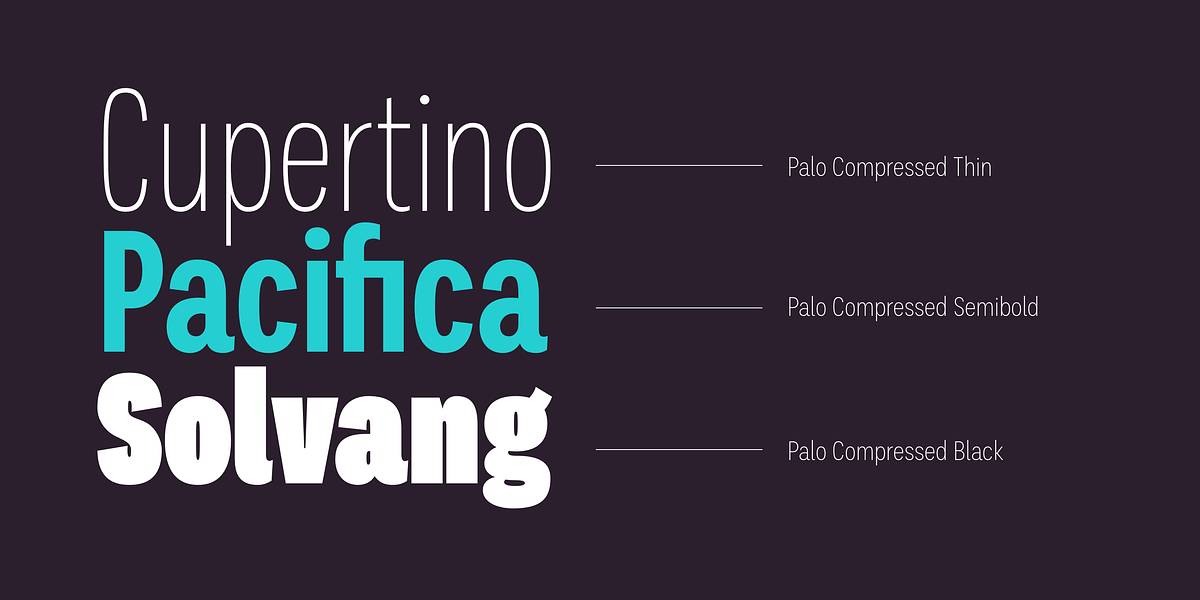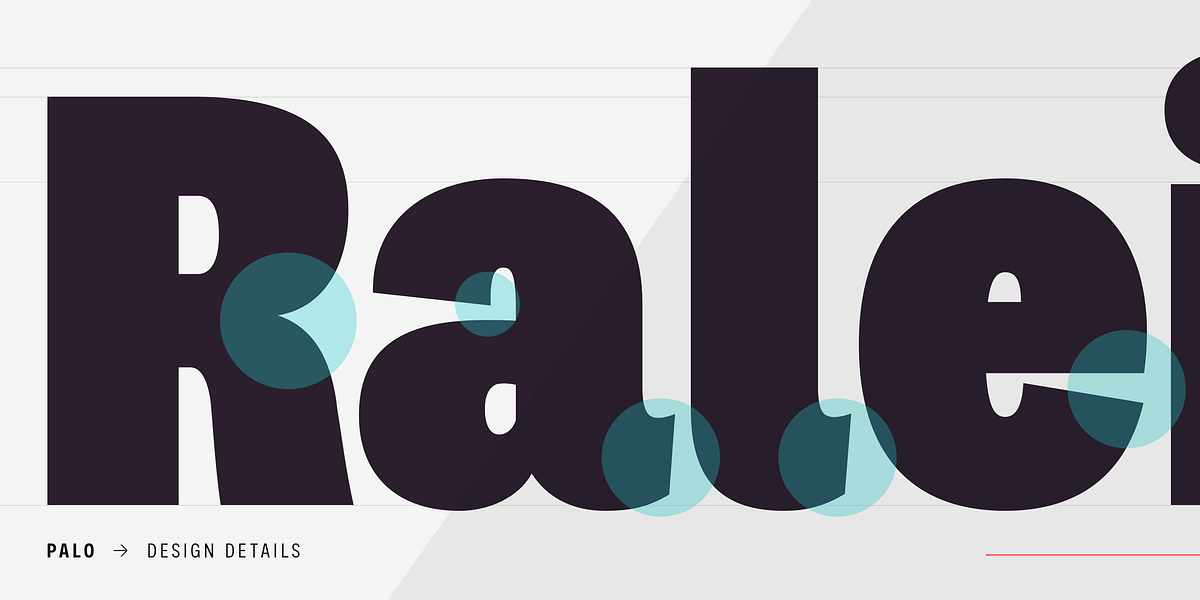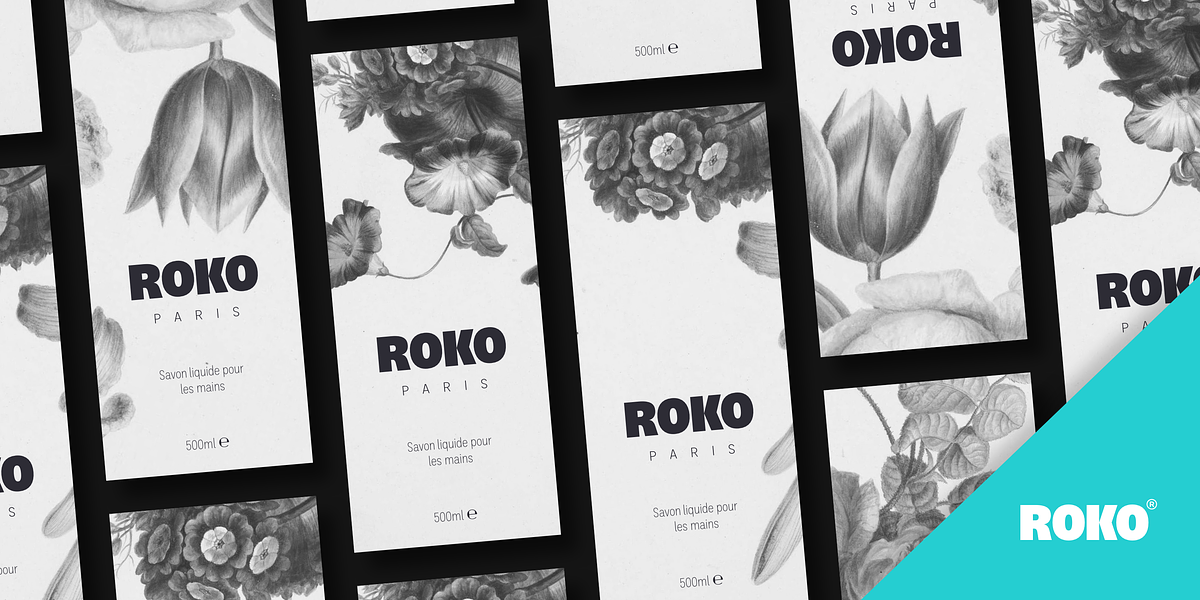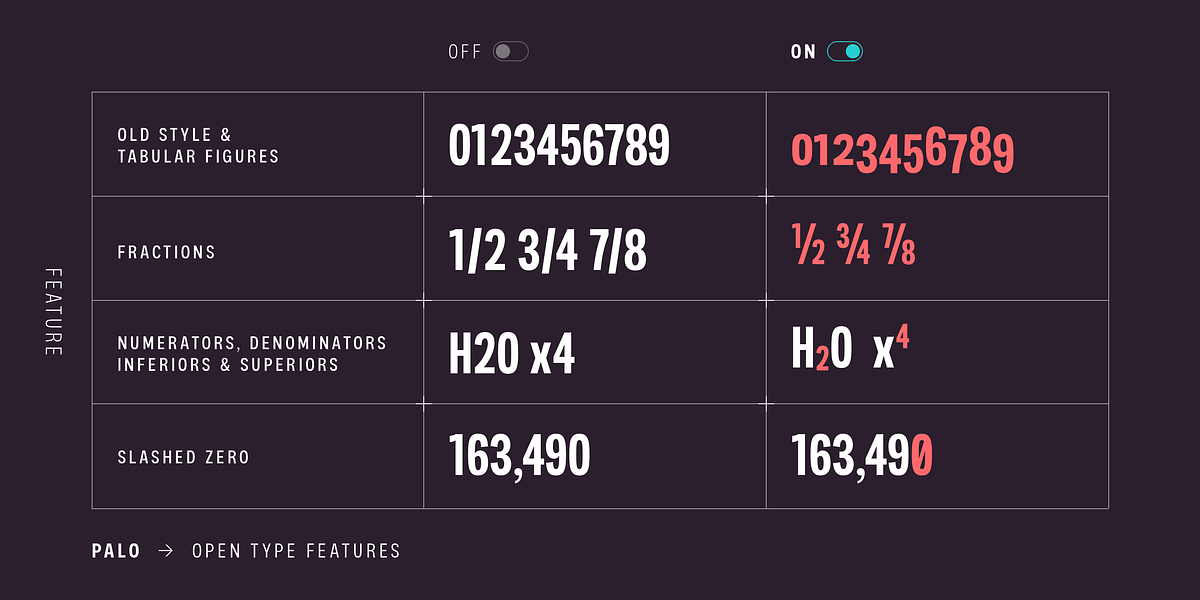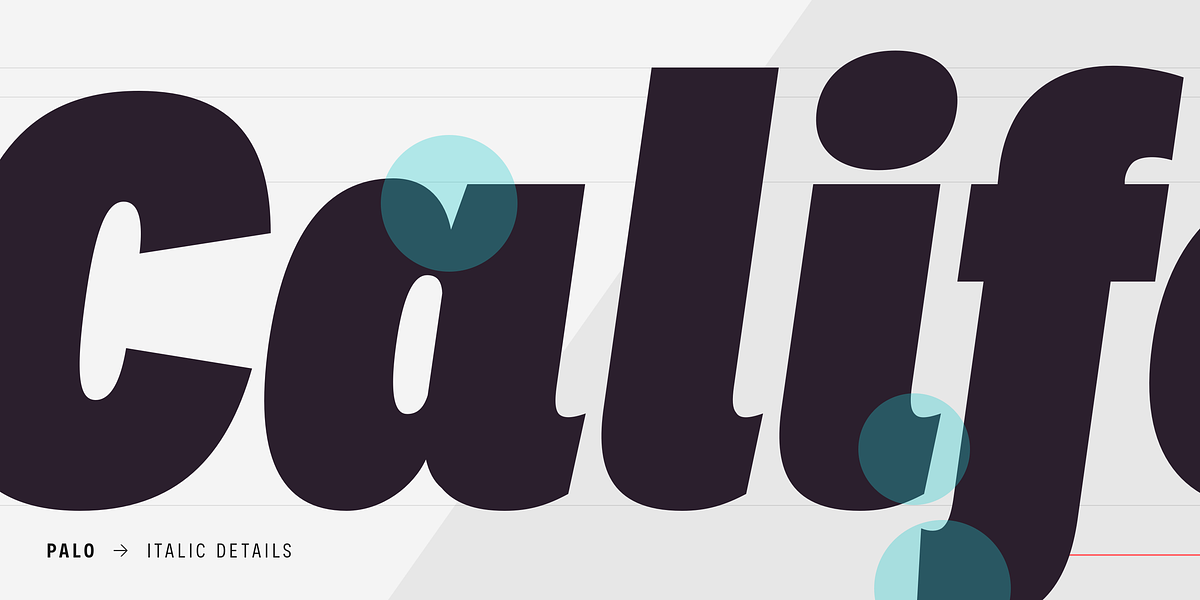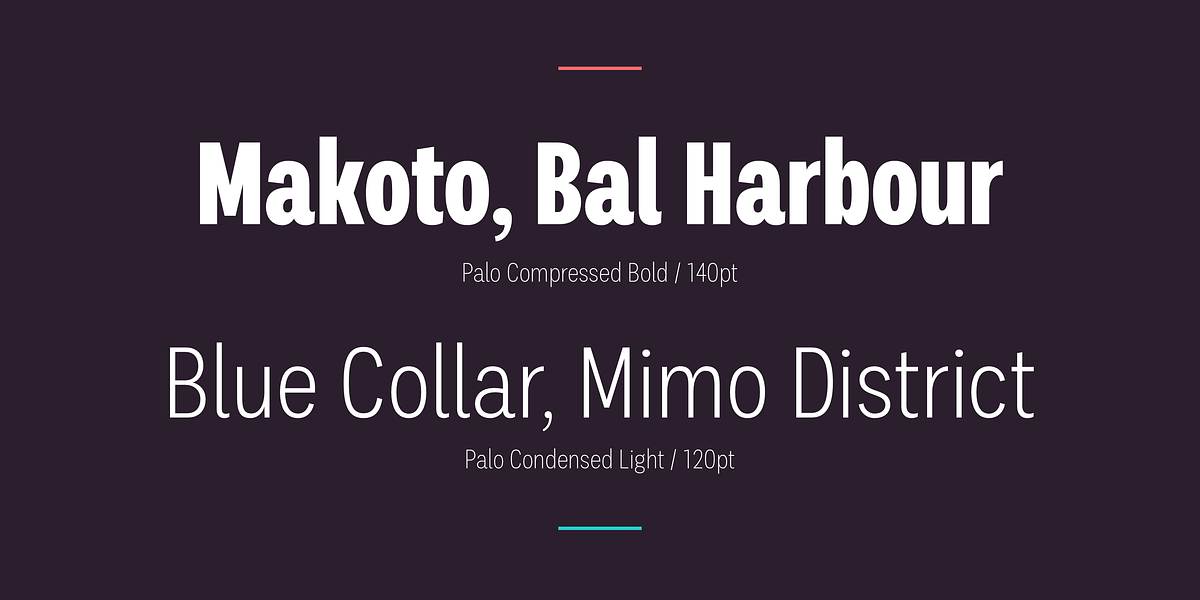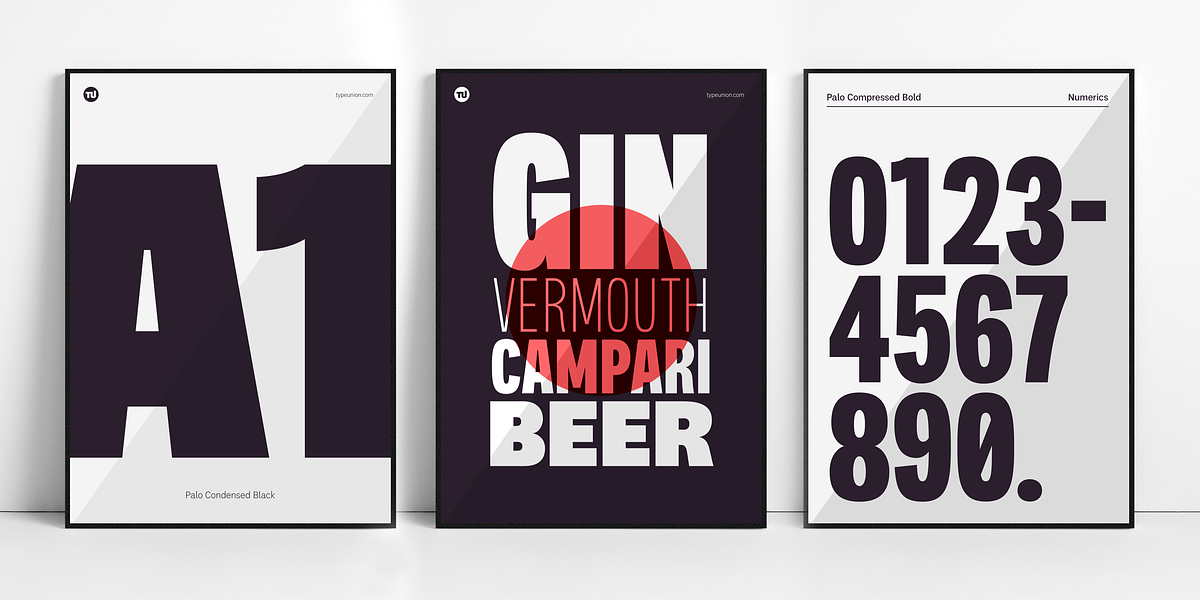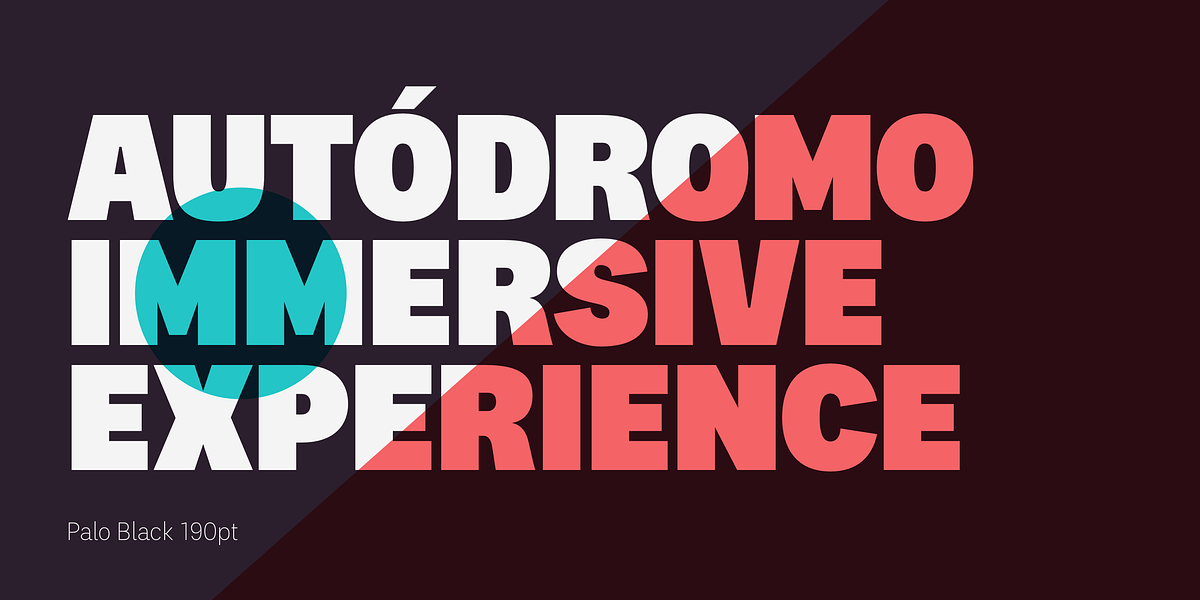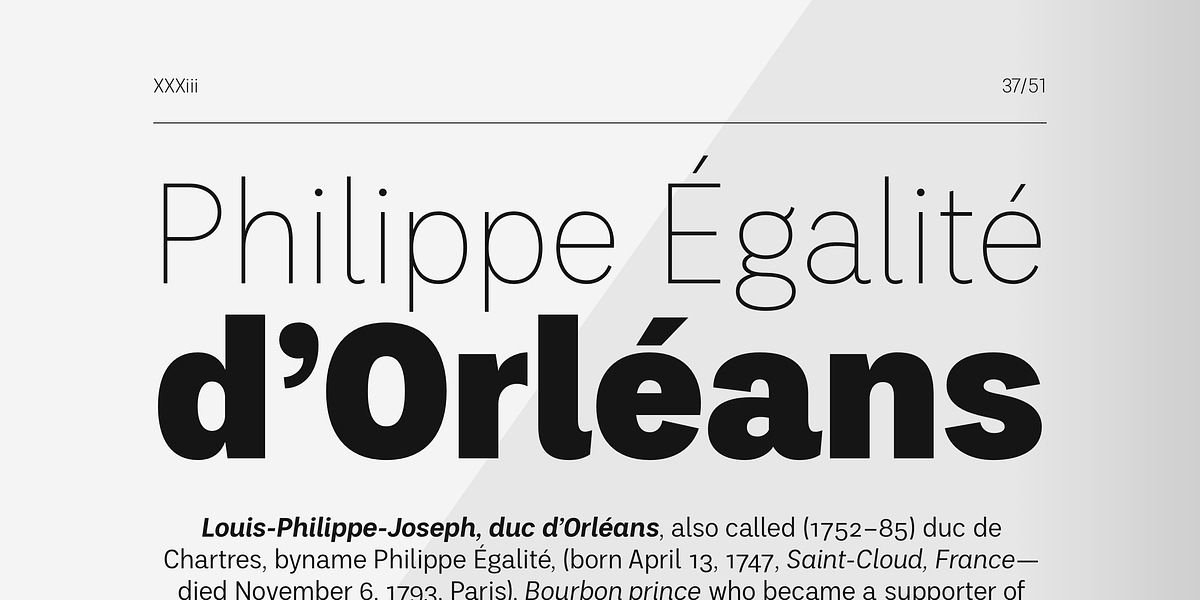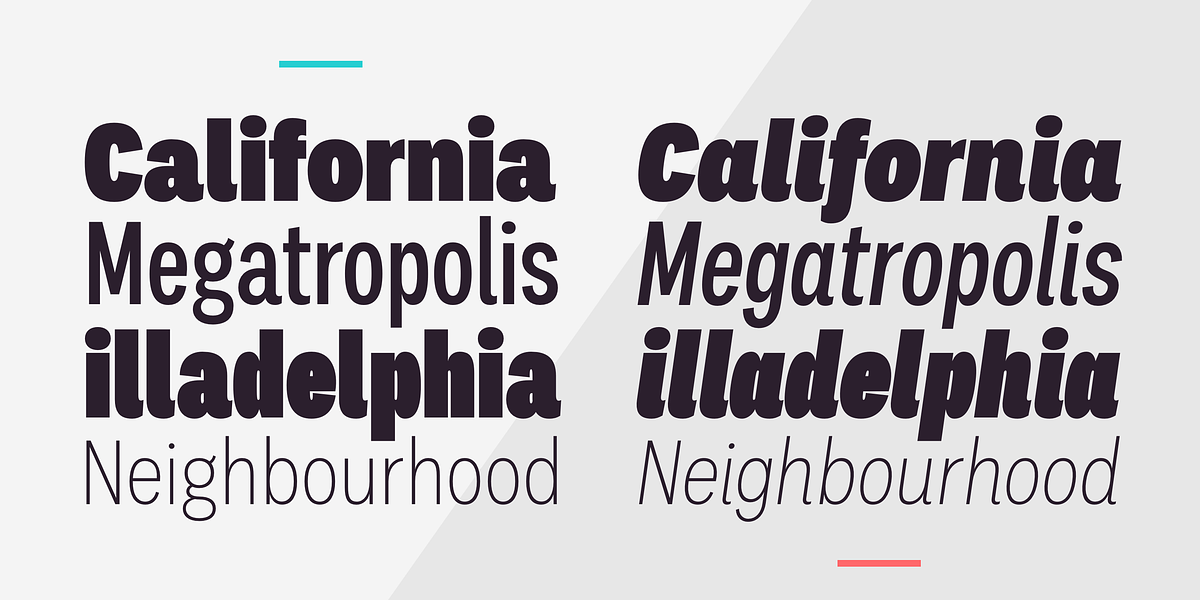
Palo
Palo is a versatile sans-serif typeface with a semi-grotesque appearance. It offers 72 styles across four widths and nine weights, including italics. Stylistic alternates provide customization options, allowing for a range of design approaches from functional to fluid. Case-sensitive punctuation and ligatures enhance its professional feel. The optically adjusted italics feature unique designs on select lowercase glyphs.